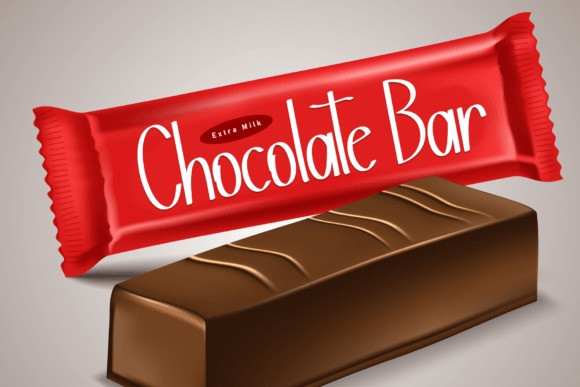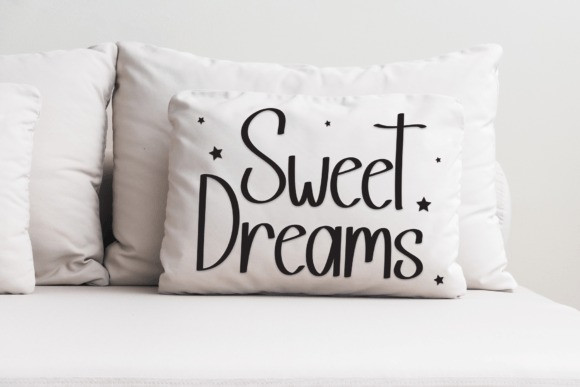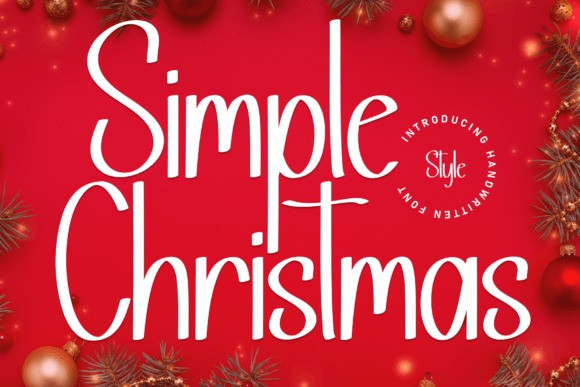
Simple Christmas Script Font
Simple Christmas Script Font is a flowing handwritten font, described by an elegant touch, perfect for your favorite projects. Fall in love with its incredibly distinct and timeless style and use it to create spectacular designs!